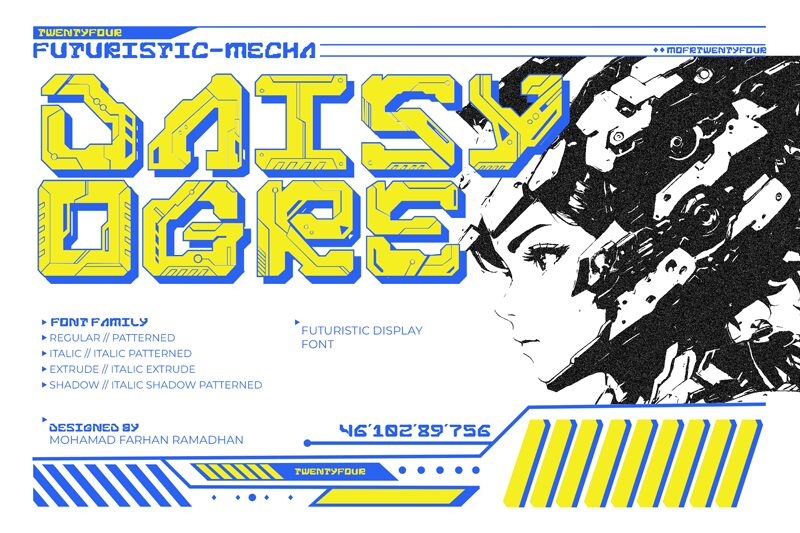
Daisyogre font
Daisyogre
Introducing Daisyogre: A bold, futuristic, and monospaced typeface inspired by the anime Synduality: Noir. This modern font features 8 unique styles that evoke the essence of machinery and mecha aesthetics. It is perfect for posters, marketing materials, titles, T-shirt designs, games, and art crafts. Daisyogre brings a cutting-edge appeal to your creative projects, elevating your designs with mechanical elegance.